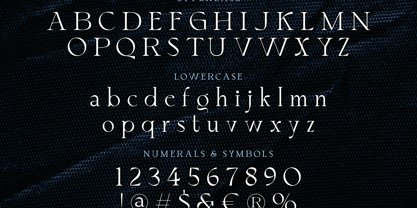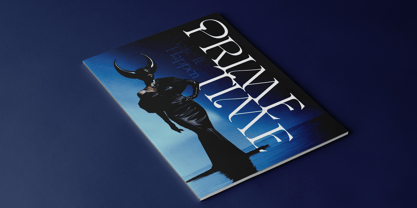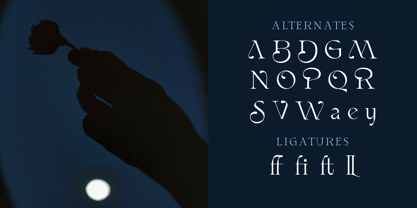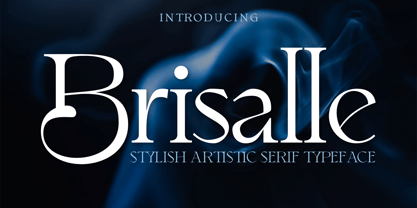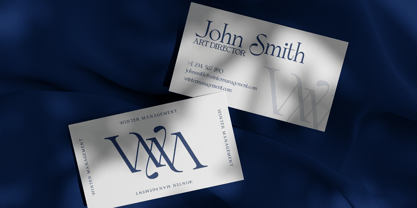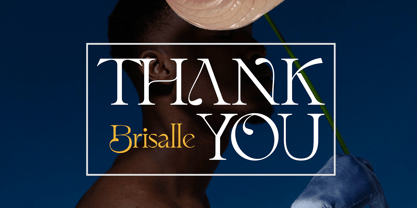
Brisalle
by Krafted
The Brisalle Font Family was designed by Heri Imanudin and published by Krafted. Brisalle contains 1 styles.
Brisalle combines elegance and creativity, making it perfect for adding character to your designs. Use it for logos, invitations, branding, editorials, websites, and more. Each letter is crafted with artistic precision, bringing sophistication and charm to your work. Let Brisalle transform your text into a timeless expression of style, beauty, and refined visual storytelling.